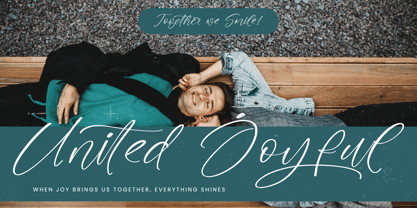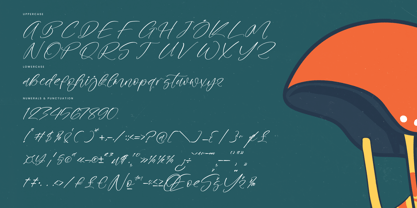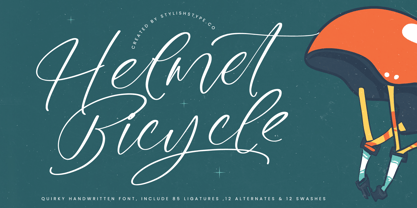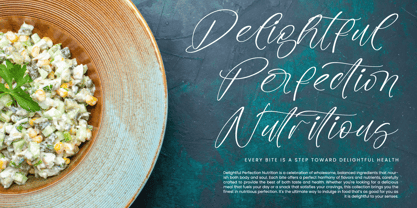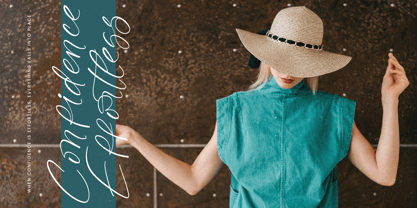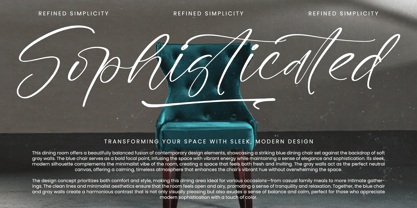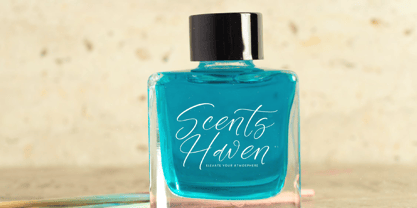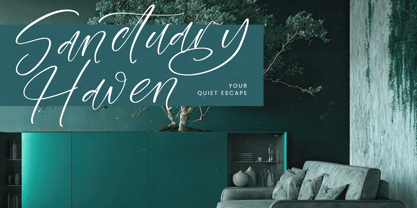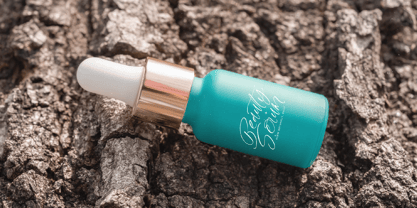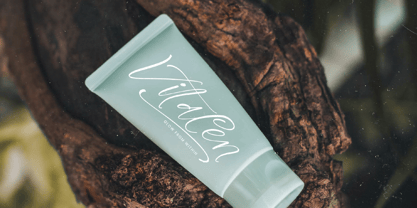
Helmet Bicycle
The Helmet Bicycle Font Family was designed by Heru Utama Putra and published by Stylishtype Studio. Helmet Bicycle contains 2 styles and family package options.
Helmet Bicycle - Quirky Handwritten Script , from Stylishtype, Suitable for any projects such as: logos, branding projects, homeware designs, product packaging, mugs, quotes, posters, shopping bags, t-shirts, book covers, name card, invitation cards, greeting cards, label, photography, watermark, special events, and all your other luxury and beautiful projects that need a Luxury Script taste.